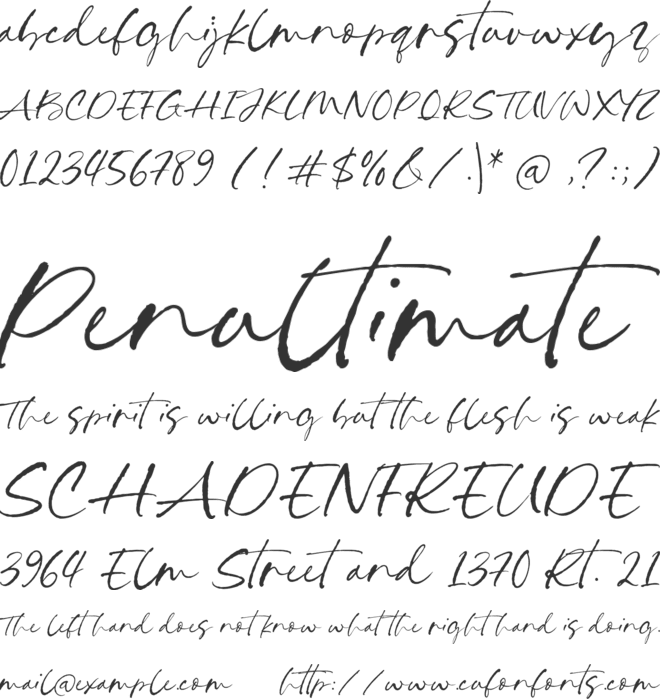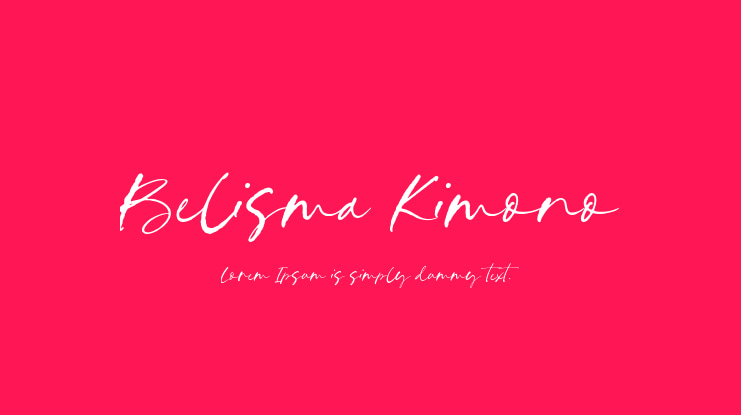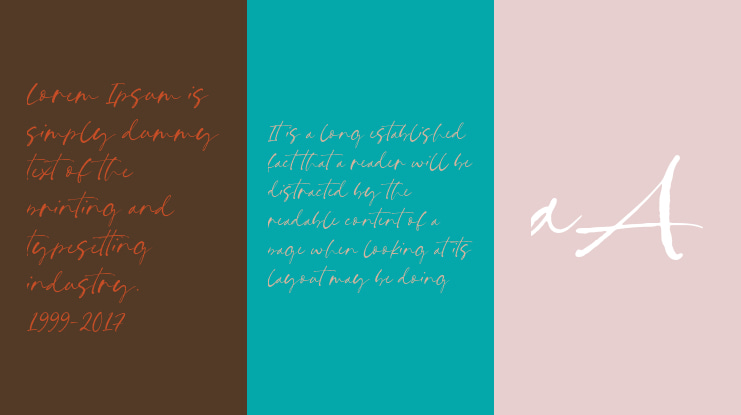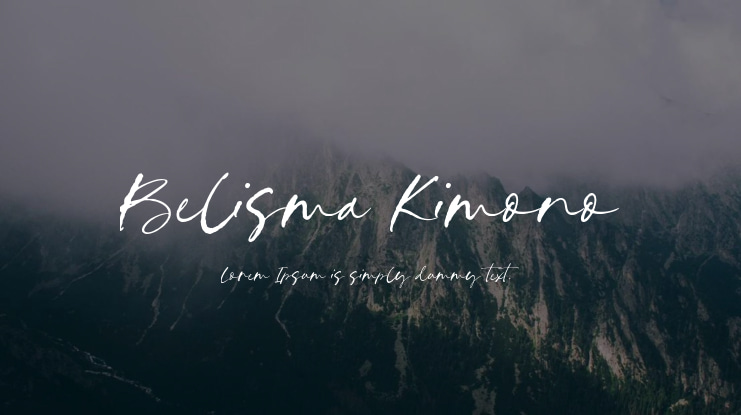
Belisma Kimono Font
Introduced by Timurtype Studio!
Belisma Kimono is a Rough Signature Font
This font is a playful handwritten signature font with whimsical charm. It features rough, organic strokes complemented by alternate ligatures that add variety and flair. It's perfect for creative branding, invitations, or artistic projects seeking a touch of elegance with a free-spirited twist.
• Alternates
• Ligatures
Belisma Kimono also supports multilingualism.
Belisma Kimono Font features premium:
• Full set of standard alphabet and punctuation